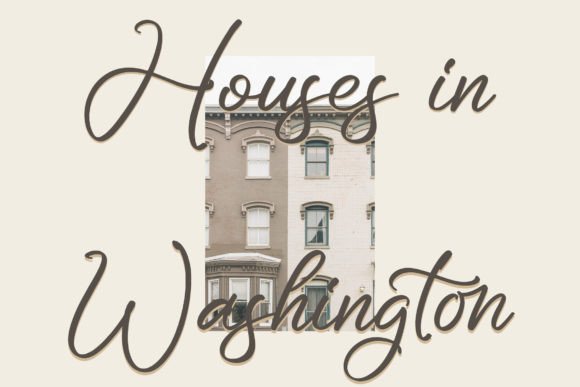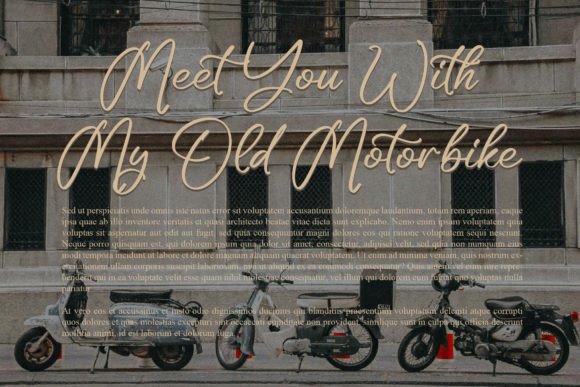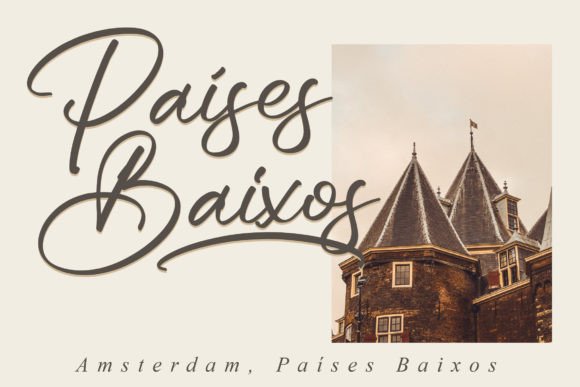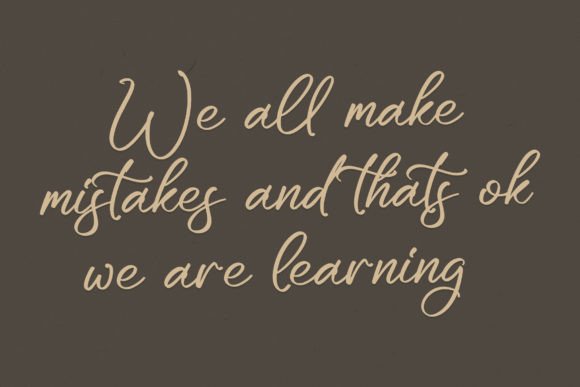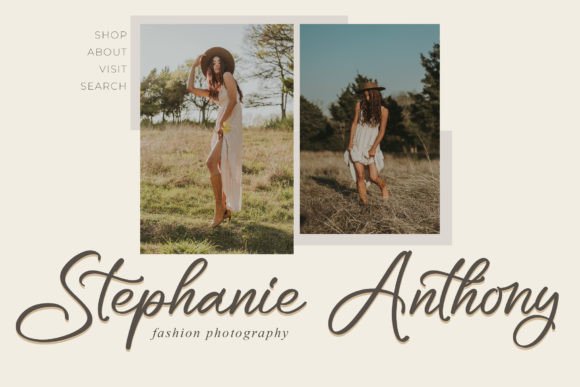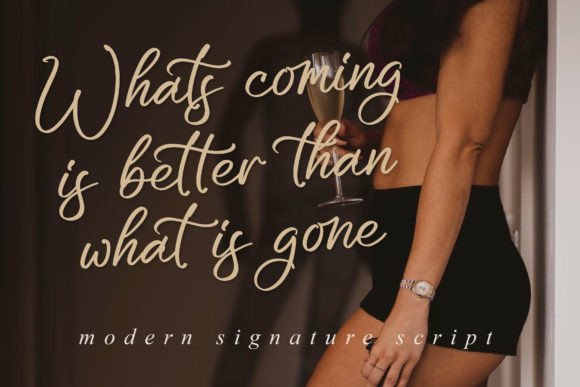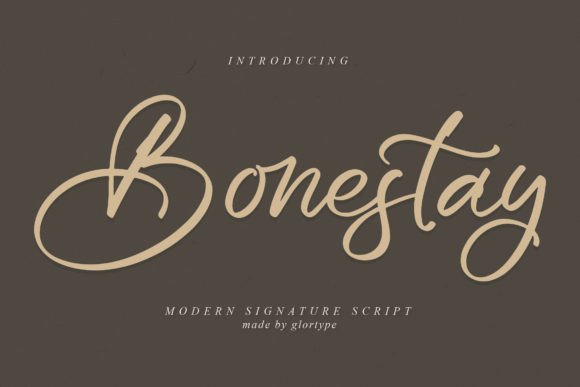
Introducing Bonestay Font: The Modern Signature Script for Creative Projects
In the world of typography, a well-crafted font can elevate a design project from ordinary to extraordinary. For designers and crafters seeking a modern signature script that exudes elegance and sophistication, look no further than Bonestay Font. Developed by Glorytype Studio, Bonestay Font is a versatile and beautiful script typeface suitable for a wide range of projects.
What is Bonestay Font?
Bonestay Font is a modern signature script designed to add a touch of luxury and refinement to any design project. With its flowing lines, intricate details, and classic feel, this font is perfect for creating stunning visual content. Whether you’re working on a logo, branding project, or product packaging, Bonestay Font is sure to impress.
Key Features of Bonestay Font
- Modern Signature Script: Bonestay Font boasts a contemporary script style that’s perfect for creating elegant and sophisticated designs.
- Highly Versatile: This font can be used for a wide range of projects, including logos, branding projects, homeware designs, product packaging, and more.
- Beautiful and Elegant: With its intricate details and flowing lines, Bonestay Font adds a touch of luxury and refinement to any design.
- Easy to Read: Despite its ornate style, Bonestay Font is surprisingly easy to read, making it perfect for body text and headlines.
Use Cases for Bonestay Font
Bonestay Font is an incredibly versatile typeface that can be used for a wide range of projects, including:
- Logos: Create a stunning logo for your business or brand with Bonestay Font.
- Branding Projects: Use Bonestay Font to develop a cohesive brand identity that exudes elegance and sophistication.
- Homeware Designs: Add a touch of luxury to your homeware designs, such as ceramics, textiles, and more.
- Product Packaging: Elevate your product packaging with Bonestay Font, perfect for food, cosmetics, and luxury goods.
- Mugs: Create beautiful and unique mug designs with Bonestay Font.
- Quotes and Posters: Use Bonestay Font to create stunning quotes and posters that showcase your message in style.
- Shopping Bags: Add a touch of elegance to your shopping bags with Bonestay Font.
- T-Shirts: Create stylish and eye-catching t-shirt designs with Bonestay Font.
- Book Covers: Use Bonestay Font to create stunning book covers that capture the essence of your story.
- Name Cards: Create beautiful and elegant name cards with Bonestay Font.
- Invitation Cards: Use Bonestay Font to create stunning invitation cards for special events.
- Greeting Cards: Add a touch of luxury to your greeting cards with Bonestay Font.
- Labels: Create beautiful and elegant labels with Bonestay Font.
- Photography: Use Bonestay Font to create stunning watermarks for your photographs.
Why Choose Bonestay Font?
With so many fonts available, why choose Bonestay Font? Here are just a few reasons why designers and crafters love this modern signature script:
- Unique and Exclusive: Bonestay Font is a unique and exclusive typeface that will set your designs apart from the crowd.
- High-Quality: Developed by Glorytype Studio, Bonestay Font is a high-quality typeface that’s designed to deliver exceptional results.
- Easy to Use: Bonestay Font is surprisingly easy to use, even for those with limited design experience.
- Versatile: This font can be used for a wide range of projects, making it an excellent addition to any design library.
In conclusion, Bonestay Font is a modern signature script that’s perfect for designers and crafters seeking to add a touch of elegance and sophistication to their projects. With its flowing lines, intricate details, and classic feel, this font is sure to impress. Whether you’re working on a logo, branding project, or product packaging, Bonestay Font is an excellent choice. So why wait? Download Bonestay Font today and take your designs to the next level!